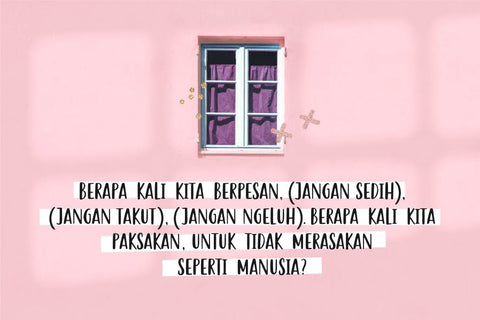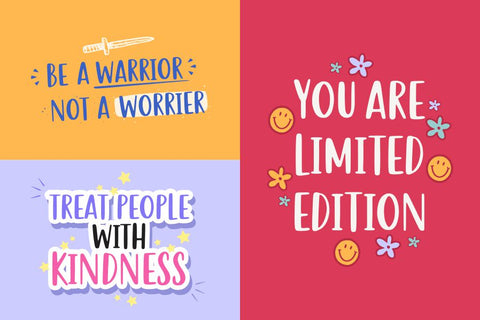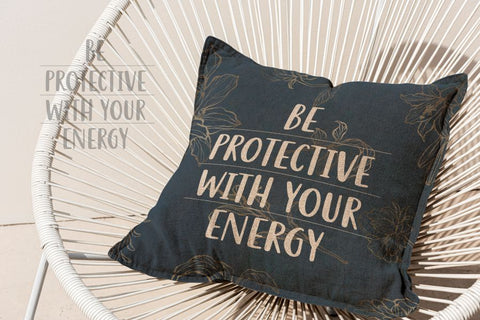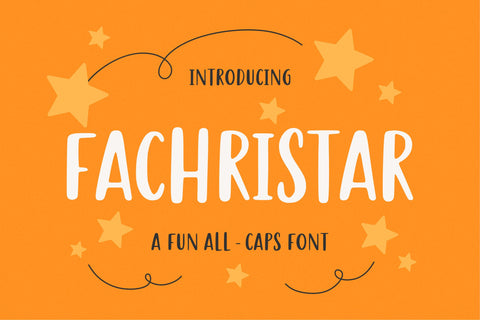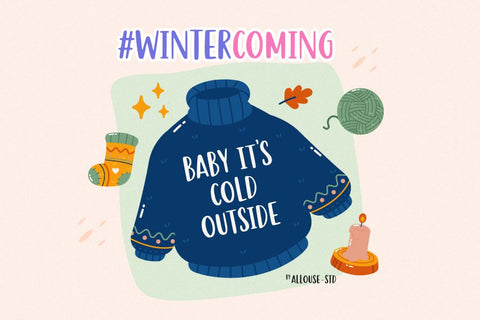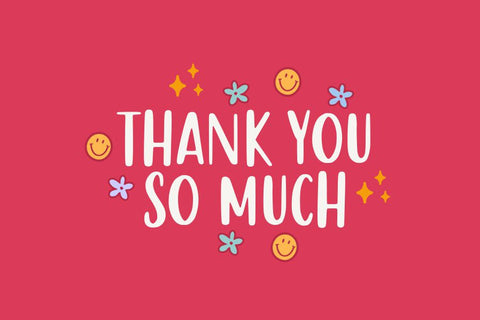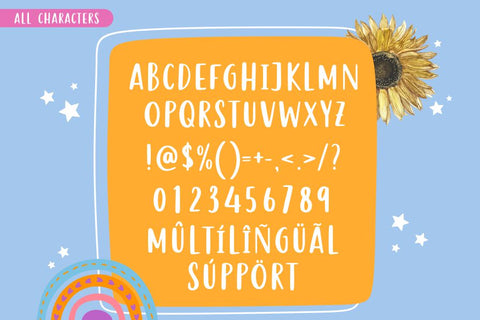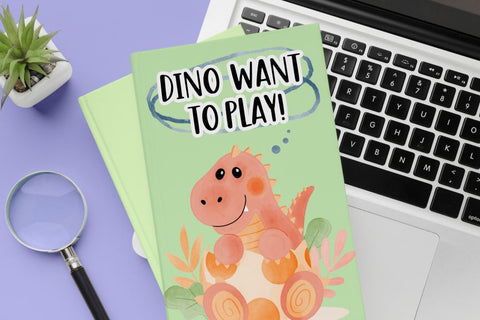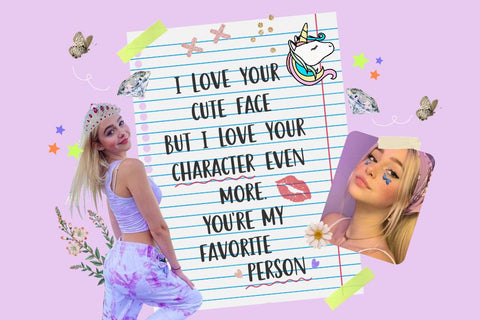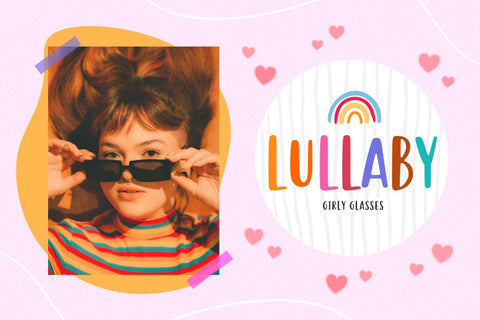
Fachristar
Proudly Present, Fachristar
Fachristar is A Fun All - Caps Font
Fachristar is perfect for product packaging, branding project, megazine, social media, wedding, or just used to express words above the background.